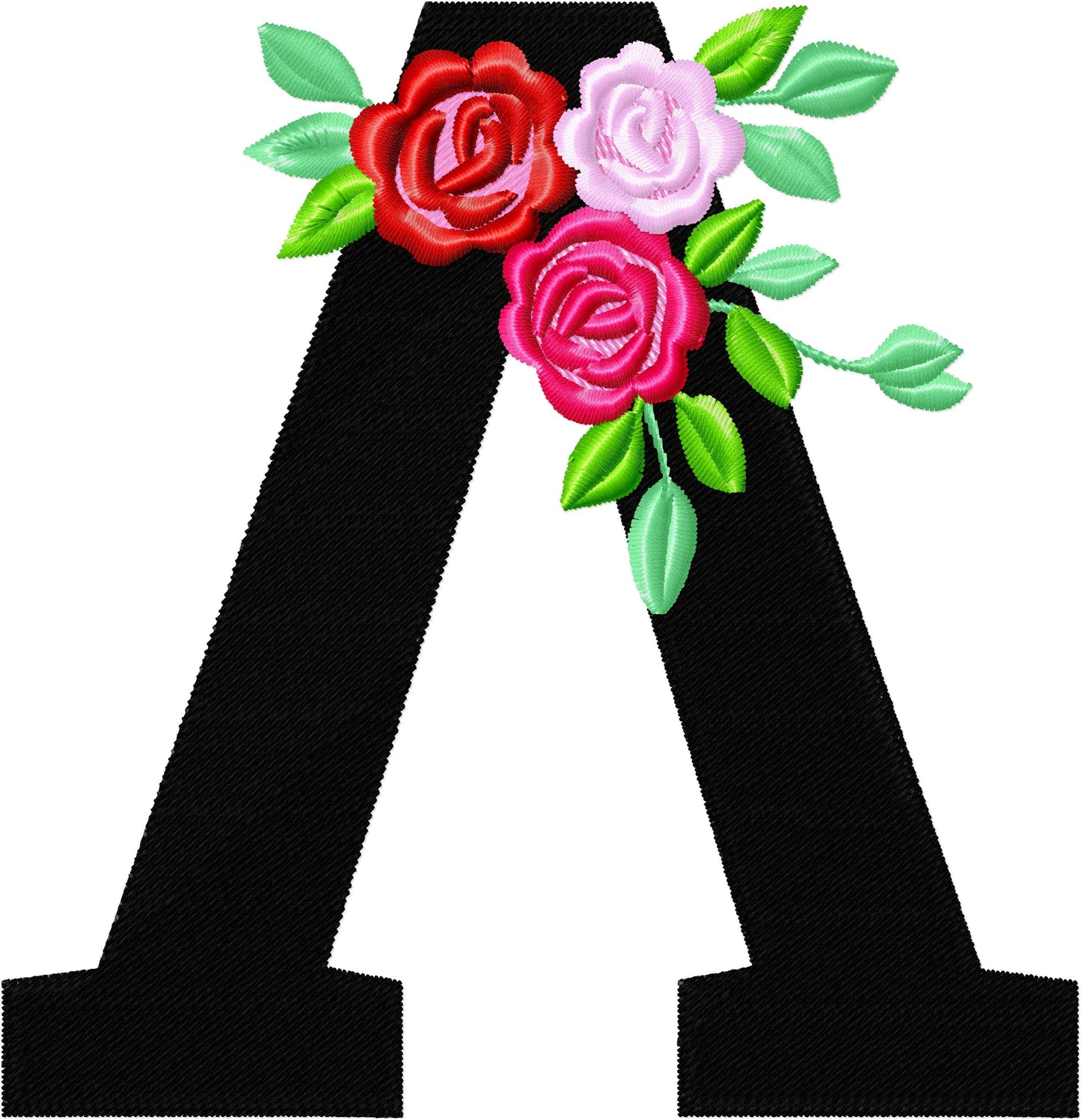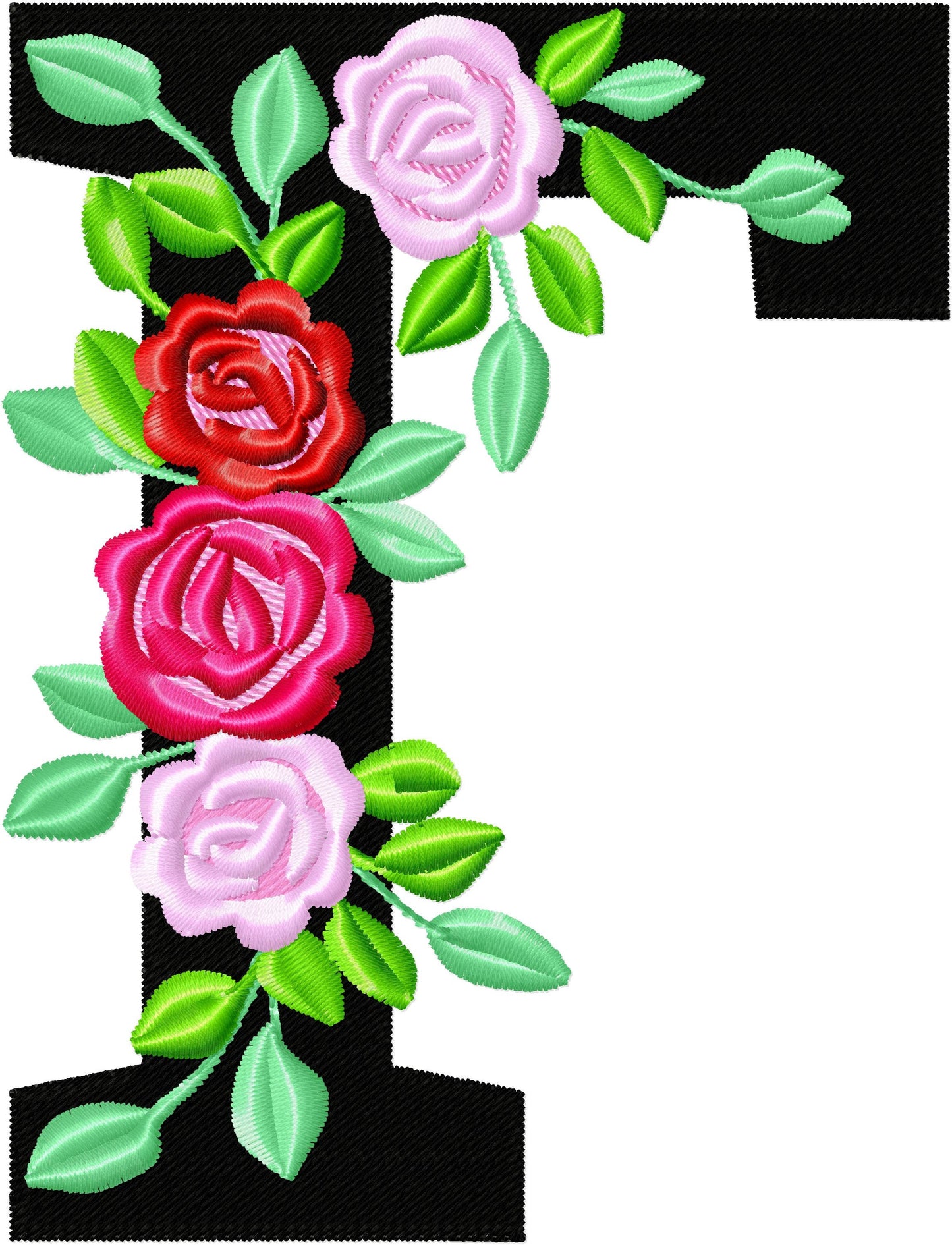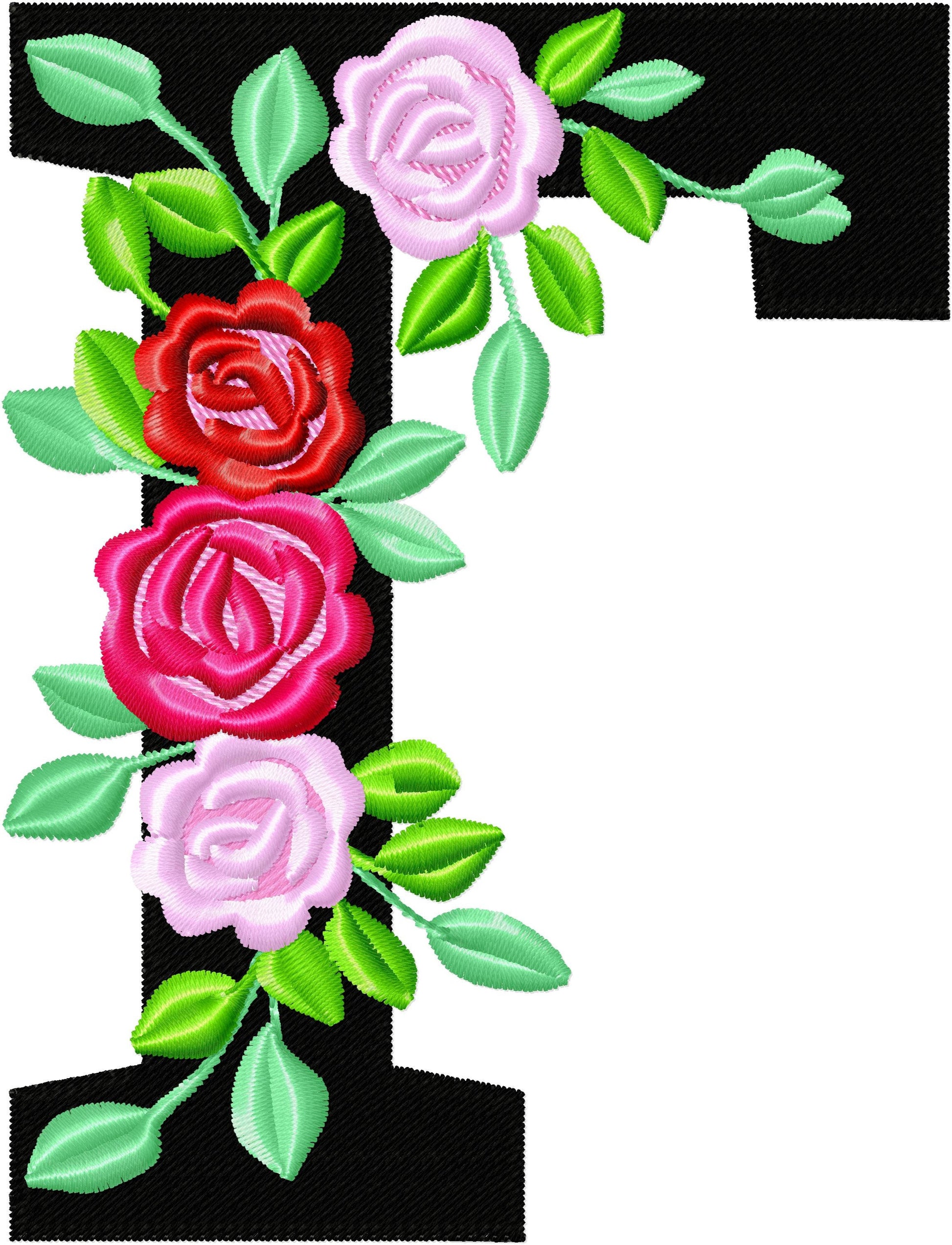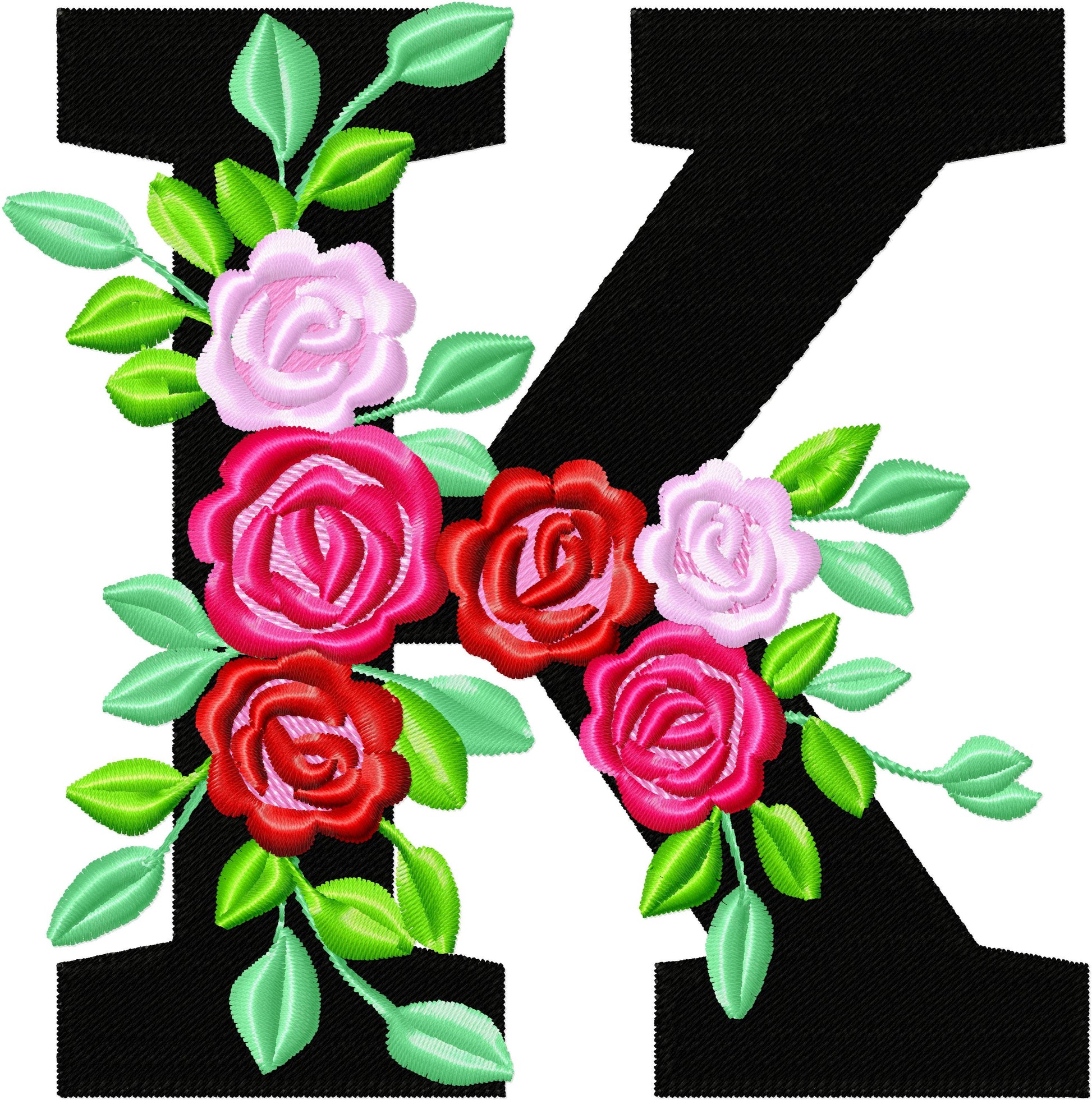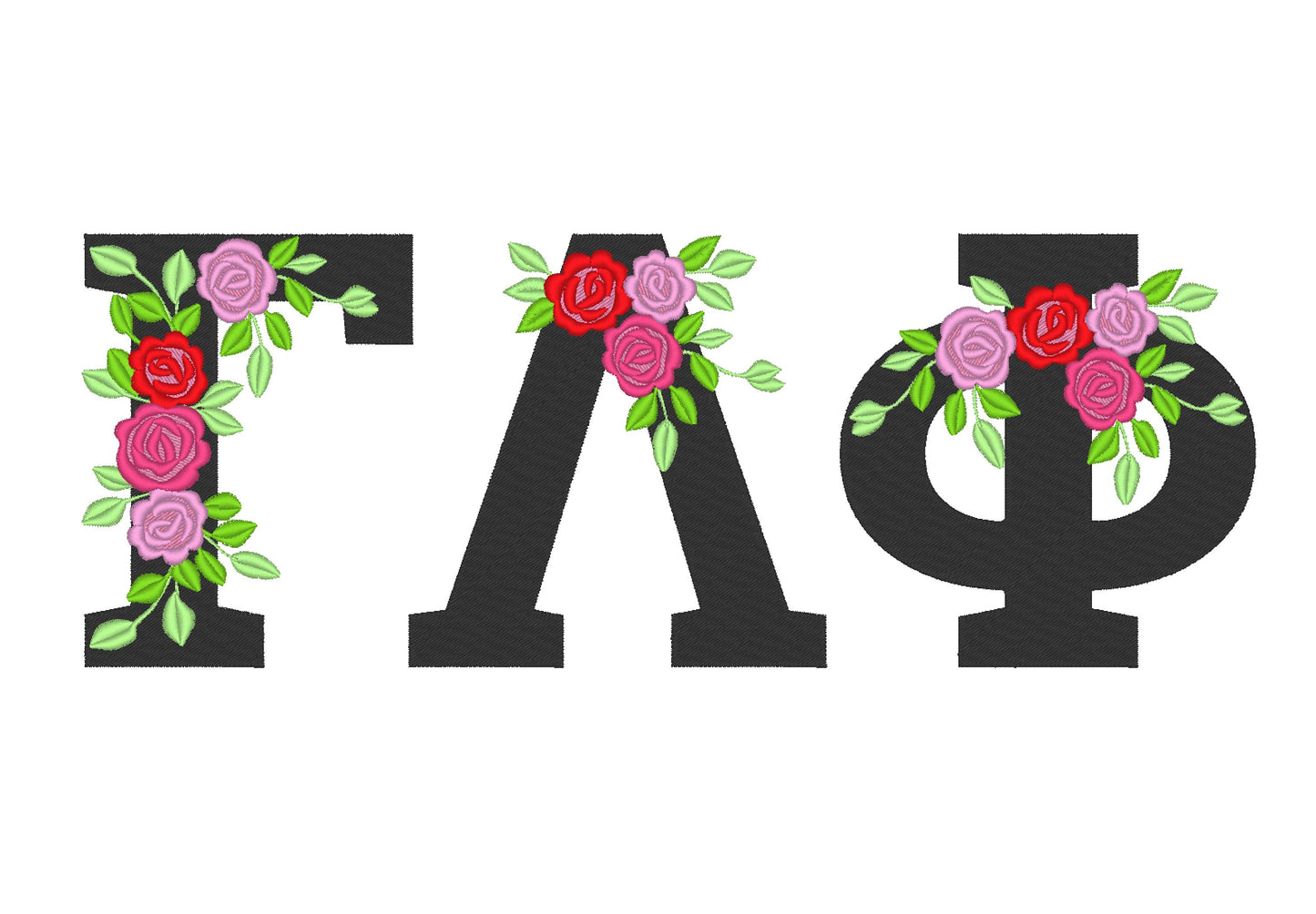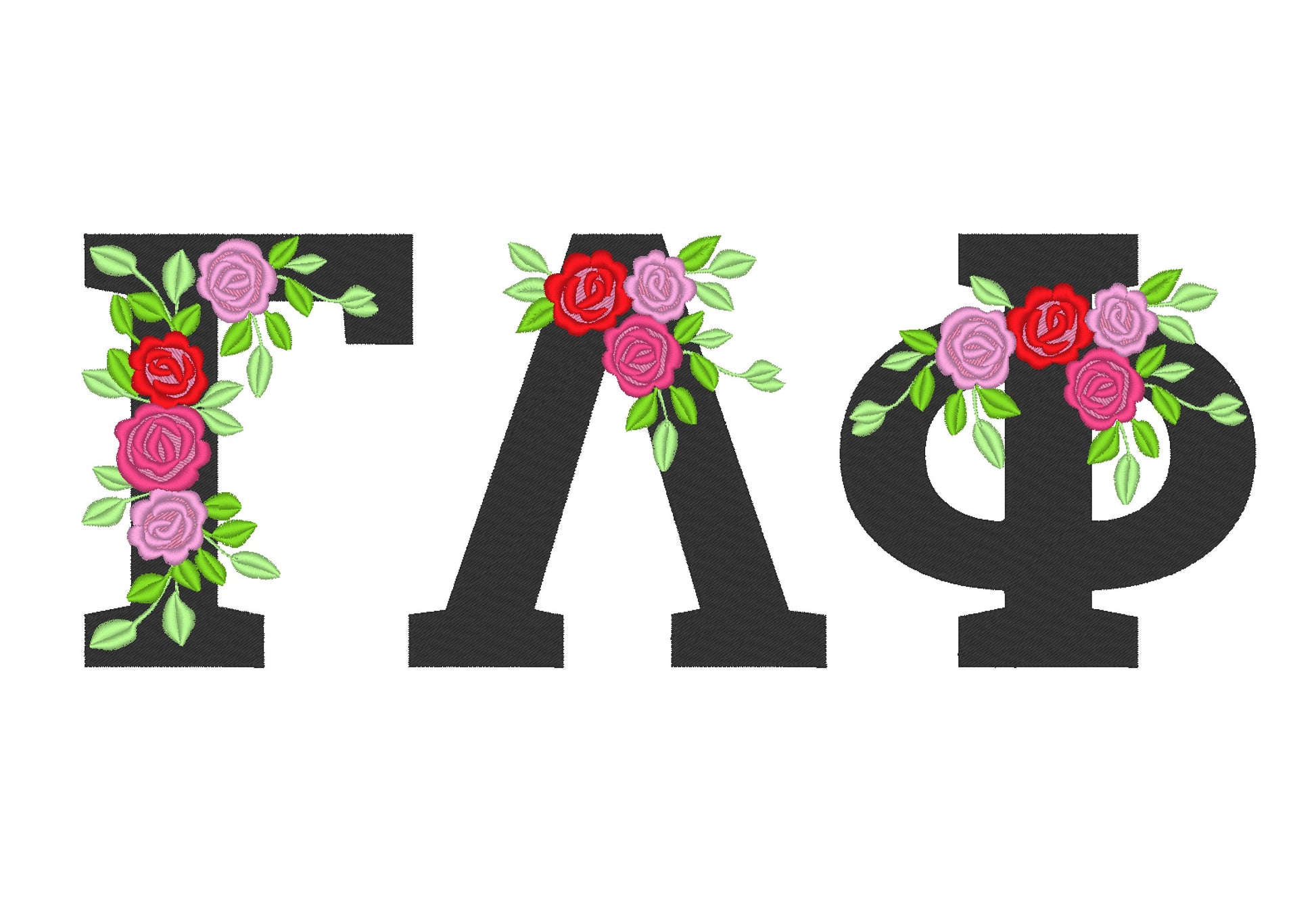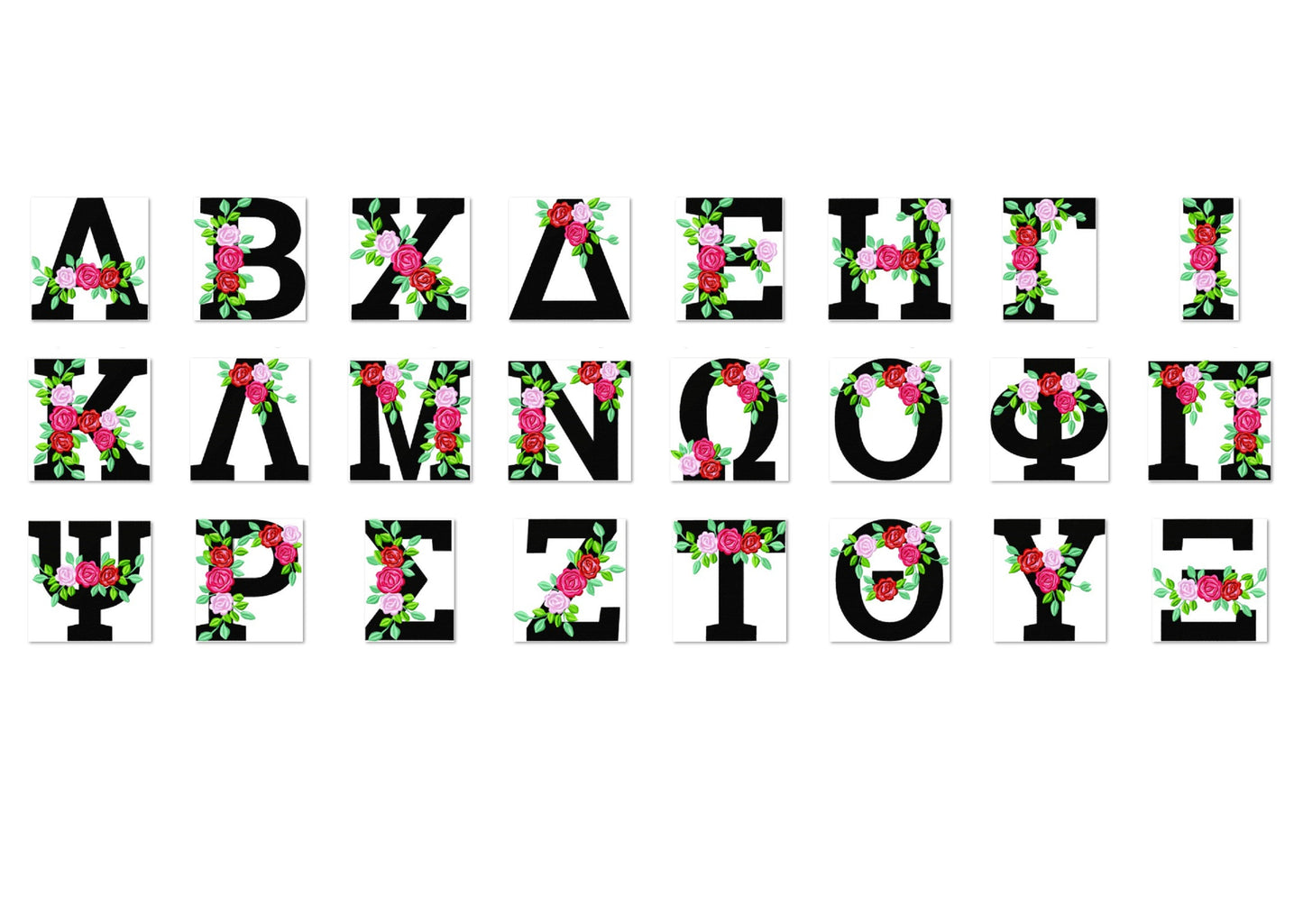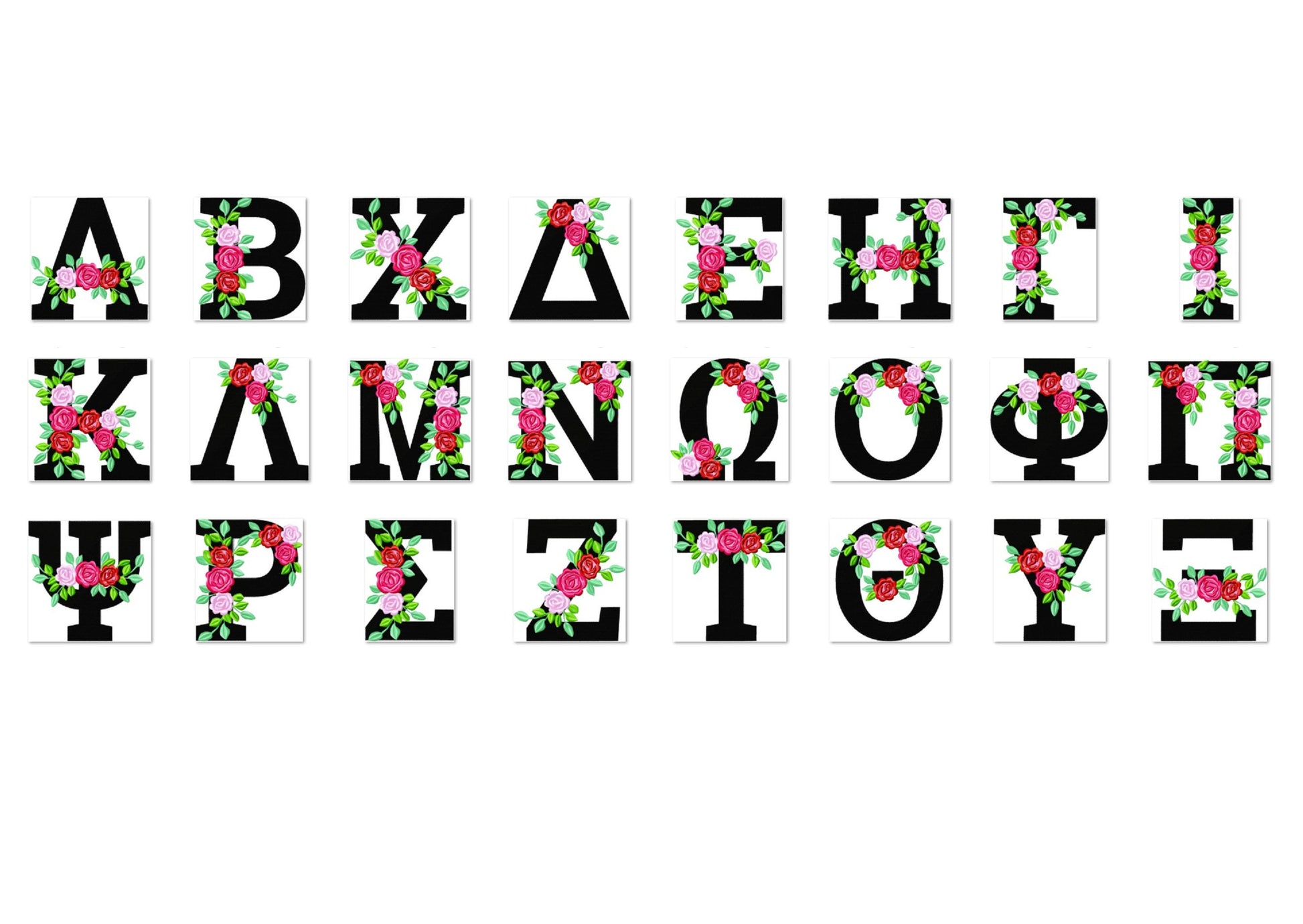
Or click to open the linkA floral Greek alphabet filled with roses, for sorority and fraternity letters. Beautiful on sweatshirts, pillows, tote bags and gifts.
All 24 Greek letters, each filled with roses and flowers, in seven sizes: 2, 2.5, 3, 3.5, 4, 4.5 and 5 inches.